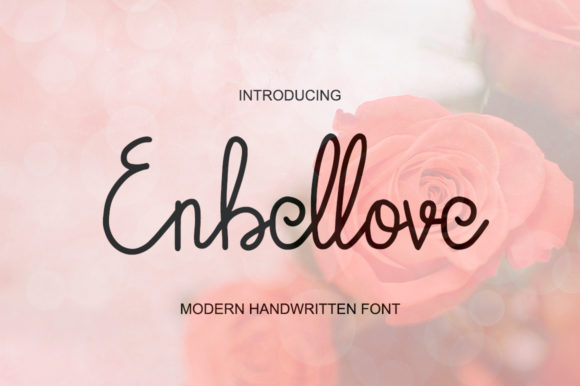
Introducing the Enbellove Font: A Journey Through Elegance and Charm
In a world where creativity knows no bounds, Enbellove Font emerges as a shining beacon, ready to ignite your imagination and transform your designs into works of art. This enchanting script font, meticulously crafted by PurMoon, is an ode to timeless elegance, capturing the essence of delicate penmanship with its slender strokes and sweeping curves.
With Enbellove Font, you embark on a journey of beauty, where every letter dances with grace across the page. Whether you're designing wedding invitations that exude romance or creating thank-you cards that express heartfelt gratitude, this font is your perfect companion. Its ethereal charm lends an air of sophistication to logos, greeting cards, and packaging, leaving a lasting impression on your audience.